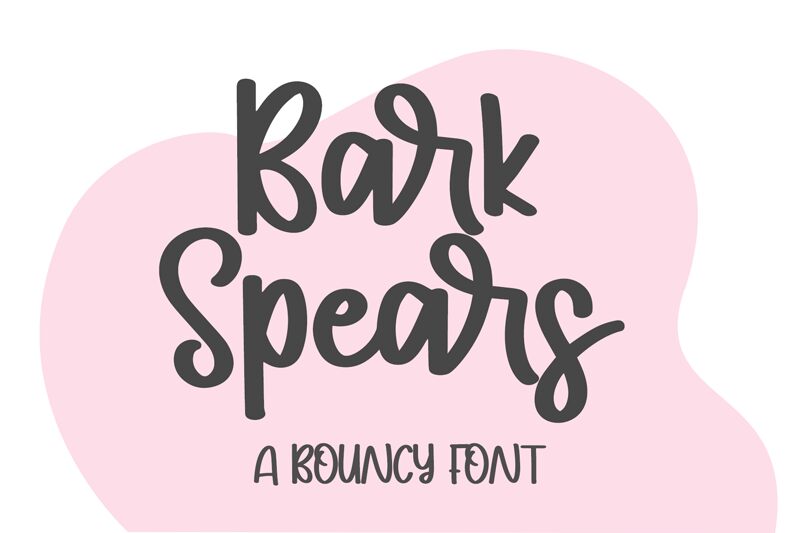
Bark Spears, the charming semi-light handwritten font by Bearytype, is the perfect choice for projects that require a playful and friendly touch. This font's whimsical style is great for children's books, greeting cards, invitations, and posters. Its semi-light weight makes it easy to read even in small sizes while maintaining its distinct character. The natural flow of the letters gives your text a personal touch and adds a unique flair to any project you embark on. With Bark Spears, you can add an organic feel to your designs and bring a smile to your audience's faces.